1. Warm Spring Font
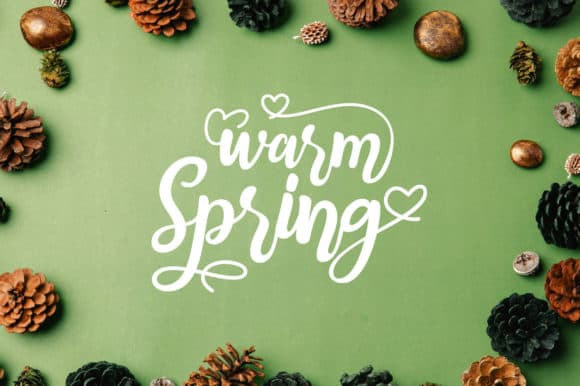
Warm Spring is a beautiful and refined script font. It has a classy, elegant and modern look that can be used for logos, branding, invitations, stationery, wedding designs, social media posts, and much more!
2. Andilay Font
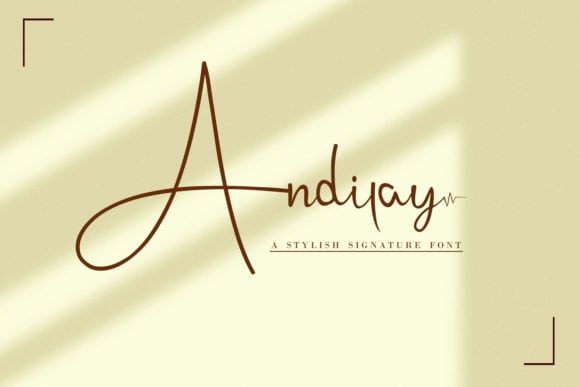
Andilay is a lovely and timeless handwritten font. It is the best choice for creating eye catching logos, branding and quotes. This font is PUA encoded which means you can access all of the glyphs and swashes with ease!
3. Long Stay Font
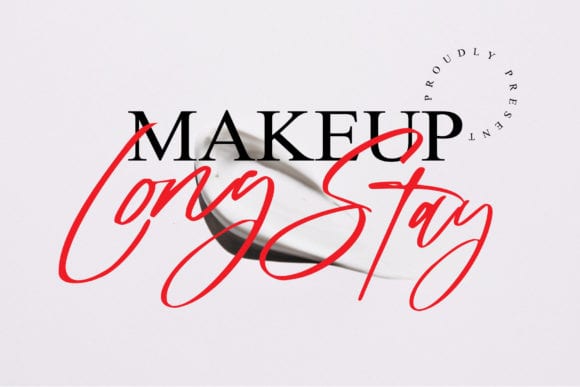
Long Stay is a relaxed and fashionable handwritten font. It will add a luxury spark to any design project that you wish to create! This font is PUA encoded which means you can access all of the amazing glyphs and ligatures with ease!
4. Letticia Font
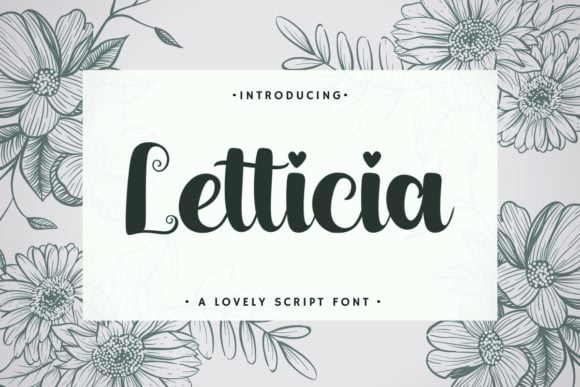
Letticia is an elegant and bold script font. Fall in love with its incredibly versatile style and use it to create gorgeous wedding invitations, beautiful stationary art, eye-catching social media posts, and much more!
5. Rosalinda Font
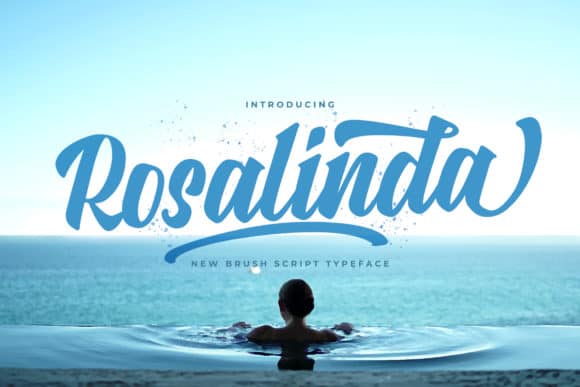
Rosalinda is a strong and bold script font. It is curved, rounded, and has an unique vintage style, that is perfect for branding. Add it to your most creative ideas and notice how it makes them come alive!
6. Fishbone Font
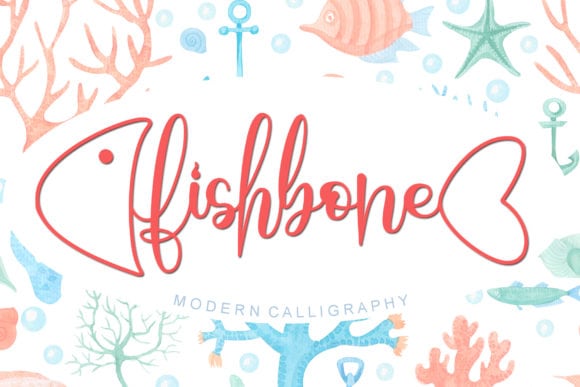
Fishbone is a modern calligraphy font with flowing letters that will give your designs a unique look with a fish model.
This beautiful and professional typeface is suitable for posters, headlines, subheadings, logo designs, branding and so much more.
7. Bigstone Font
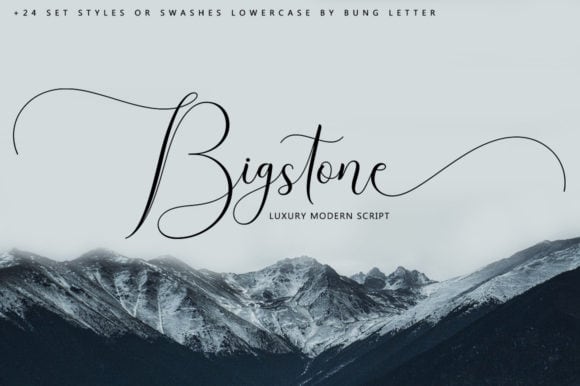
Bigstone is a ravishing script font. This adaptable font has a wide spectrum of applications ranging from greeting cards to headlines and is guaranteed to add a romantic feel to your next project.
8. Midnight Vagansa Font
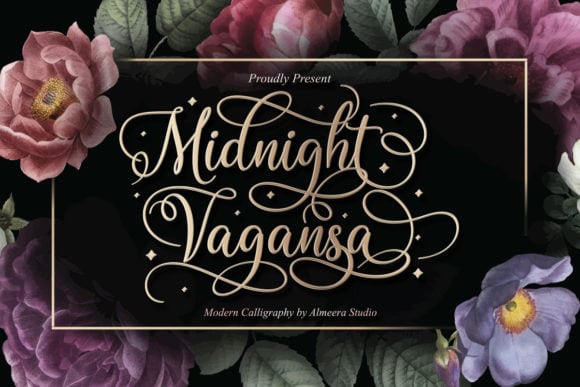
Midnight Vagansa is an elegant script font with a contemporary atmosphere and impeccable form, inspired by timeless classic calligraphy. Not too thin and not too thick, balanced and varied, this font was designed to enhance the beauty of your projects.
9. My Favorite Font
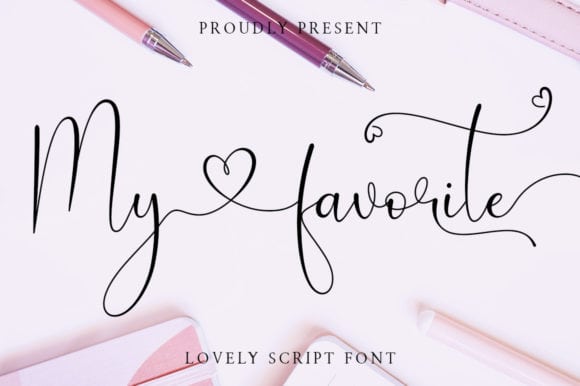
My Favorite is a tall and modern calligraphy font. It looks stunning on wedding invitations, thank you cards, quotes, greeting cards, logos, business cards and every other design which needs a handwritten touch.
10. Yaldã Font
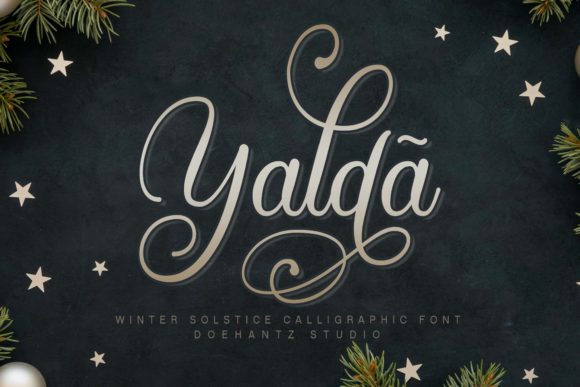
Yaldã is a beautiful, sweet, and curly handwritten font. This sweety font will look gorgeous on a variety of design ideas. It will add a joyful and romantic touch to each of your projects!